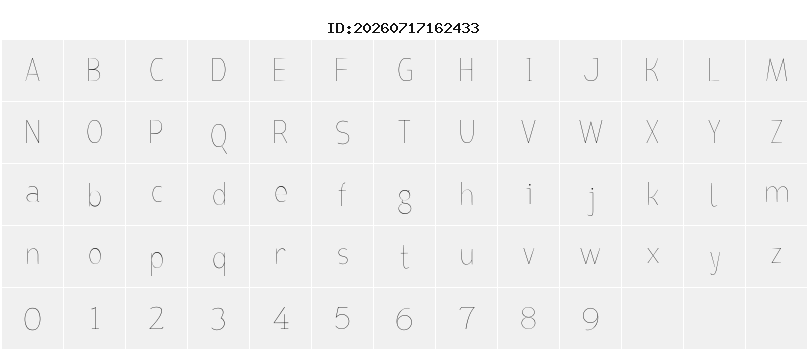
Bird cherry lite Preview
• Font Name: Bird cherry lite
• Font ID: Bird cherry lite
• Full Font Name: Bird cherry lite
• PostScript Name: Birdcherrylite-Regular
About Bird cherry lite.ttf
Bird cherry lite.ttf is a modern, elegant sans-serif font designed for ultimate readability and visual harmony. Perfect for branding, headlines, web design, and print materials.